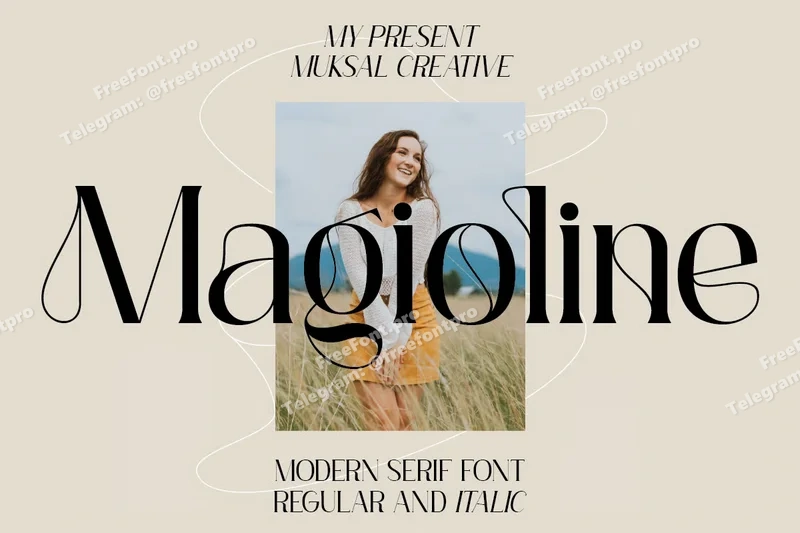
Magioline – Elegant Serif
Magioline is a modern serif font with elegant styling, ornamentation, and versatile appeal. It blends classic serif structure with decorative alternates and glyphs to elevate designs with character and sophistication. Suitable for editorial layouts, logos, magazine headers, product packaging, and stylized text overlays that demand both readability and flair.